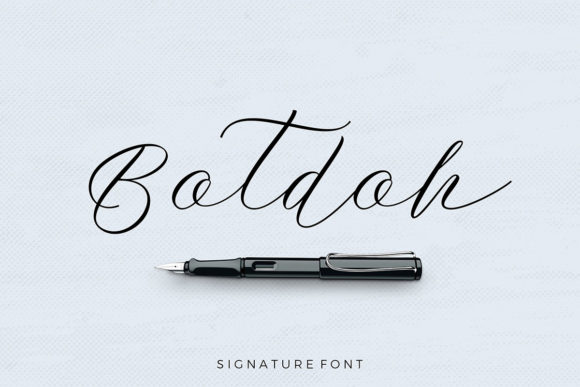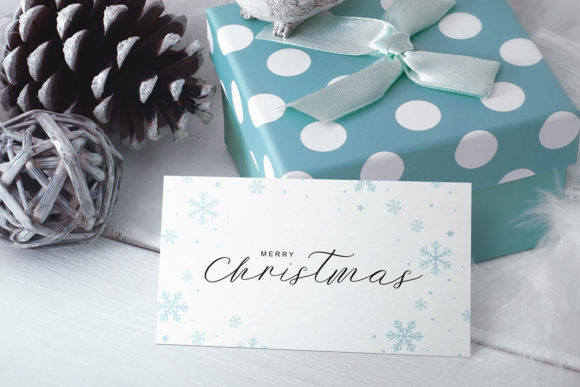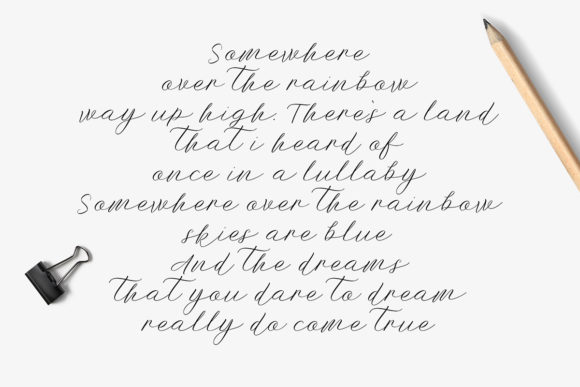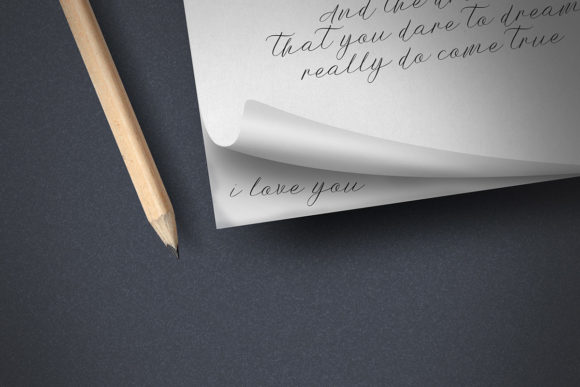
About Botdoh Font
Botdoh is a flowing and timeless handwritten font. It is the best choice for creating eye catching logos, branding and quotes. Every letter has a unique and beautiful touch, which will make your design come alive!